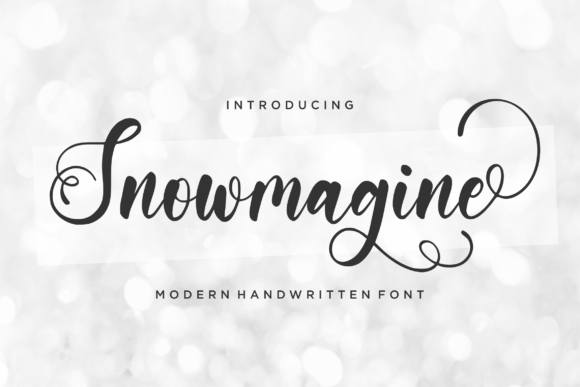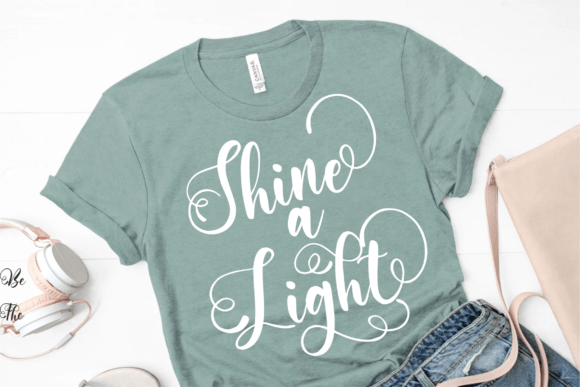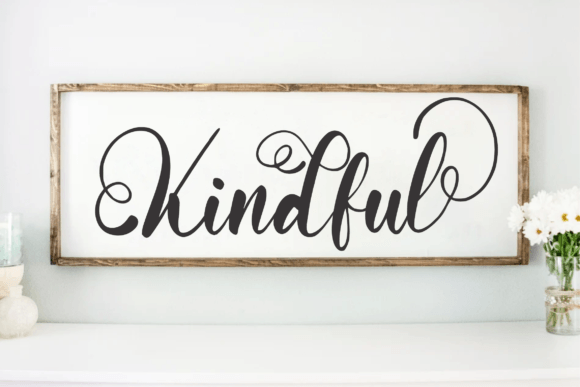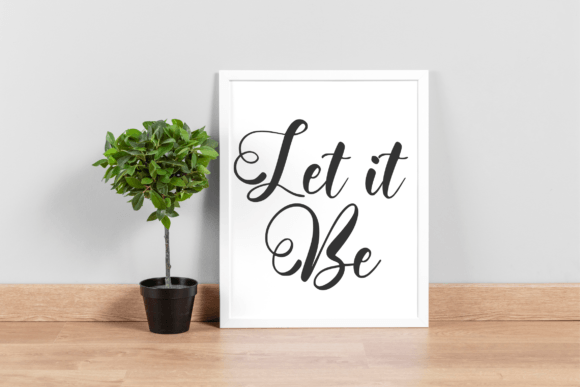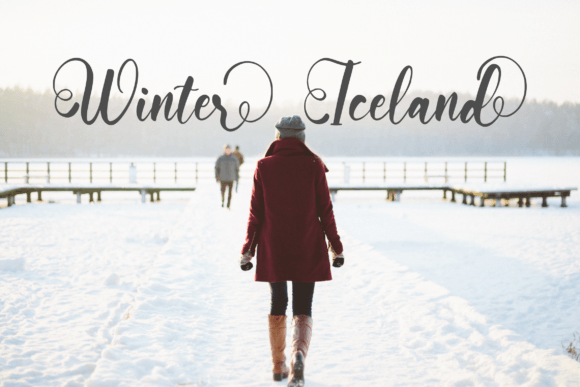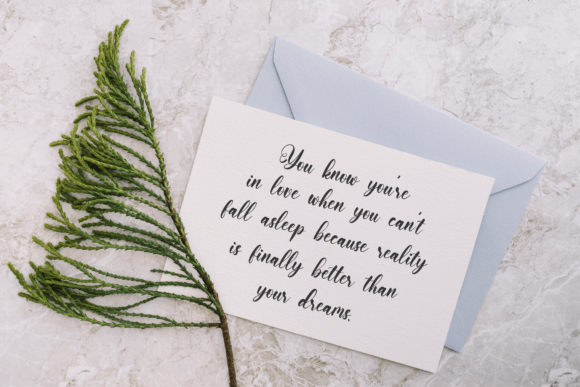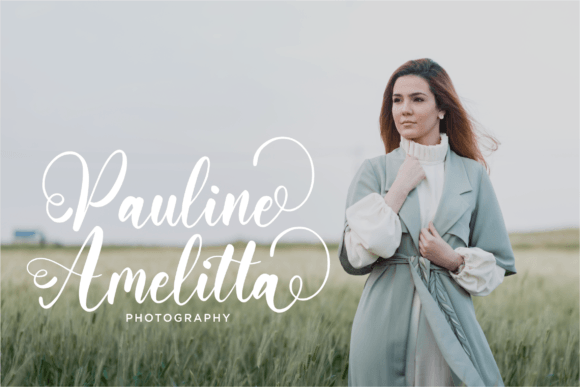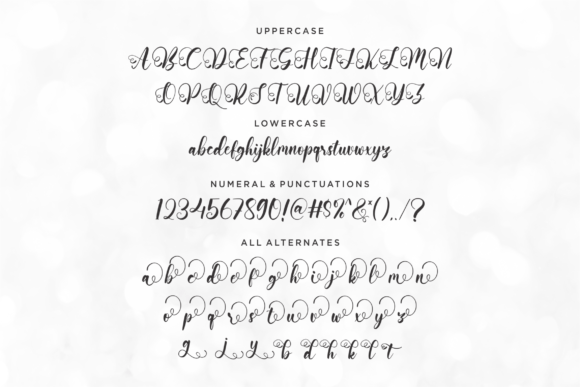
About Snowmagine Font
Snowmagine is a modern handwritten font that offers a stylish and versatile option for a variety of design projects. Whether you’re working on product packaging, branding projects, magazines, social media posts, weddings, or any context where expressing words above the background is crucial, Snowmagine adds a contemporary touch to your creative endeavors.
The modernity of Snowmagine is evident in its carefully crafted letterforms, providing a trendy and chic visual experience. The handwritten touch adds a personal and authentic feel, making it well-suited for projects that aim to convey modern elegance.
In product packaging and branding, Snowmagine contributes to a sleek and fashionable brand identity. Its versatility ensures that it can adapt to different industries and themes, maintaining a consistent and engaging visual tone.
For magazines and social media posts, Snowmagine brings a modern and eye-catching appeal. The font’s ability to express words above various backgrounds enhances the overall visual impact, making it a suitable choice for projects that require a trendy and attention-grabbing aesthetic.
The PUA encoding of Snowmagine is a valuable feature, allowing easy access to all the glyphs and swashes with enhanced flexibility and creative freedom. This feature lets you incorporate additional elements and variations, customizing the font to suit the specific needs of your design.
Whether you’re working on weddings or other special events, Snowmagine becomes a versatile tool that elevates the overall aesthetic. Its modern handwritten style adds a layer of sophistication and contemporary flair to your projects.
In summary, Snowmagine is more than just a font; it’s a design asset that brings modern elegance to a variety of creative projects. Whether you’re working on branding, social media graphics, or special events, Snowmagine is ready to add a touch of stylish authenticity to your designs.